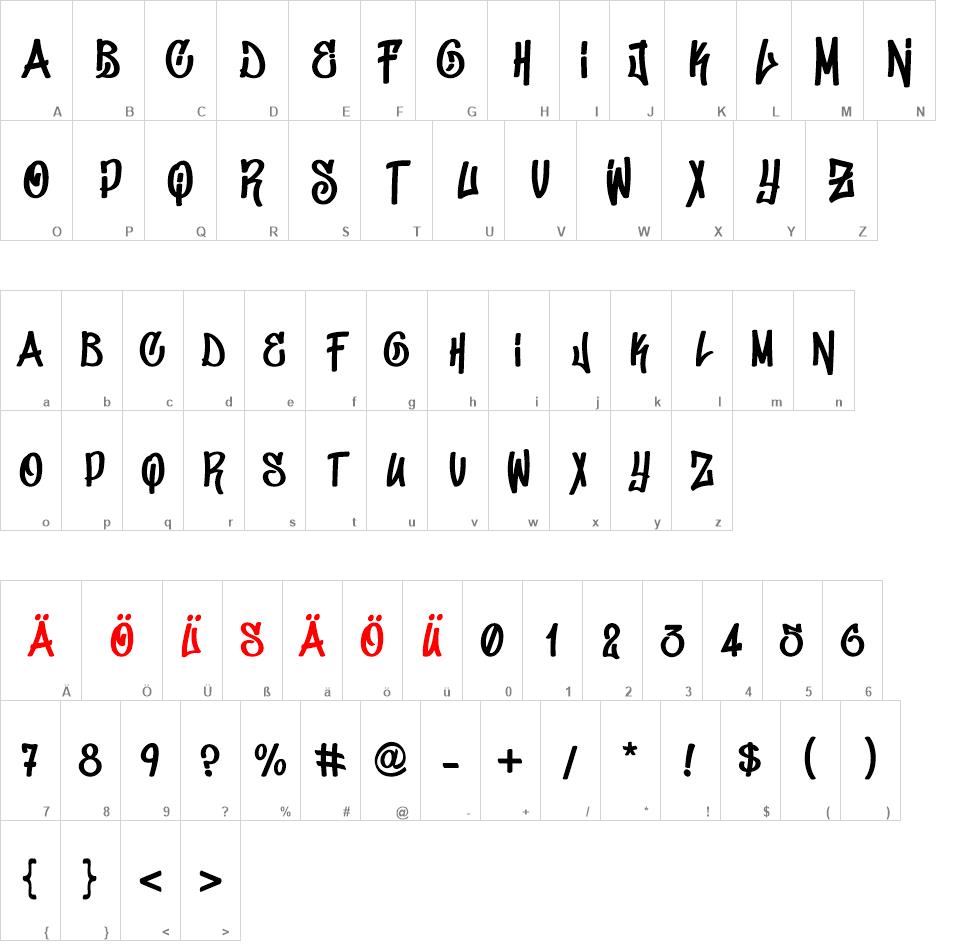
Don Graffiti
Don Graffiti is old school urban inspired graffiti style display font with a clean touch that is perfect for your designs to have that authentic look and feel, the file includes .OTF format